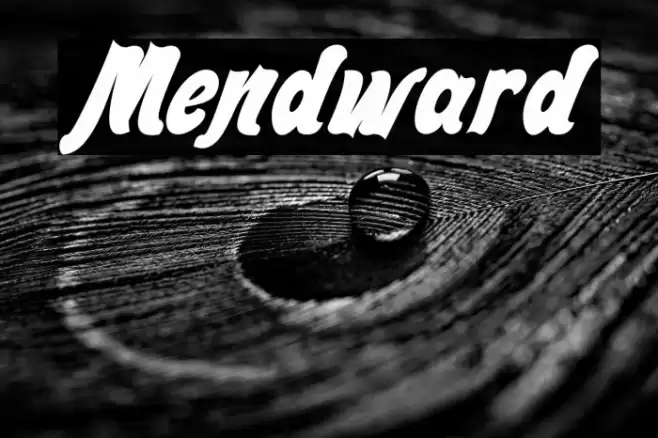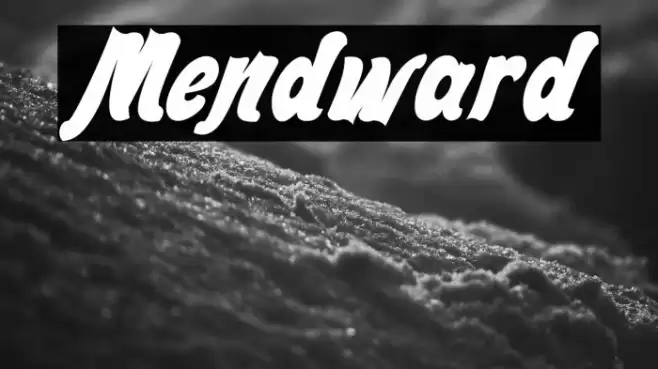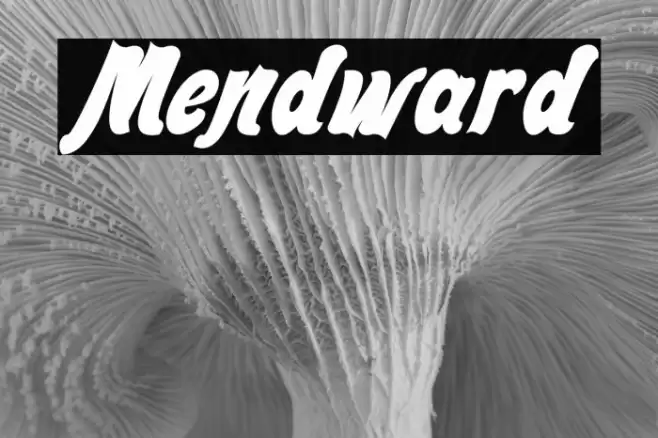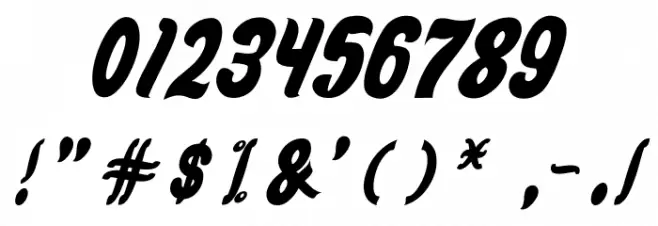
Mendward Font
Mendward Description
This font features a bold and expressive script style, characterized by its thick, flowing strokes and dynamic curves. The letters are interconnected, creating a sense of movement and fluidity. The uppercase letters are particularly dramatic, with exaggerated flourishes and a strong presence. The lowercase letters maintain the same boldness, with a slightly more compact form. The numbers and special characters are consistent with the overall style, ensuring a cohesive look. This font is designed to capture attention and convey a sense of elegance and creativity.
A bold, expressive script font with dynamic curves and interconnected letters from Regular fonts.
- Proposed Projects: Ideal for branding, logo design, invitations, and creative headlines.
- Character Spacing: Tight
- Use Case: Logos, Headlines, Invitations